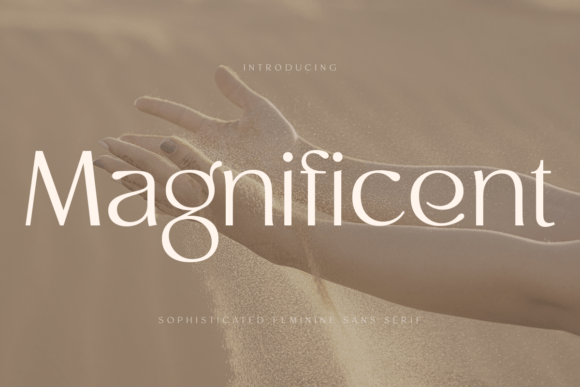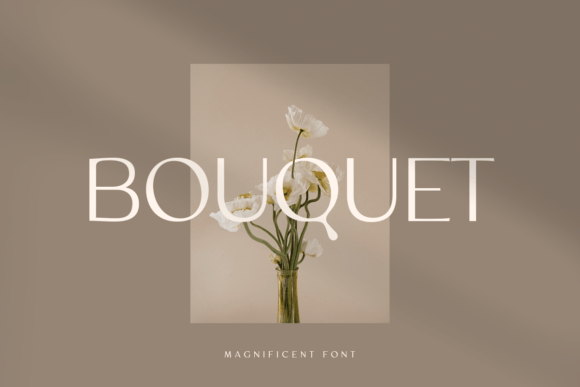
Magnificent Font: Retro Modern Sans Serif for Elegant Logo Design
About the Magnificent Font
Welcome to the world of Magnificent Font, a typeface that will inspire your next great project. Magnificent is a feminine retro modern vintage font with a fancy, playful, unique, and versatile vintage sans serif that you can combine to get a beautiful typography. It is perfect for branding projects, logo, wedding designs, social media posts, advertisements, product packaging, product designs, label, photography, watermark, invitation, stationery, and any projects, it makes with a high level of legibility.
Magnificent excels in headlines, short-form text, and branding applications where its retro-modern flair shines. Its playful energy is ideal for packaging, social media graphics, and invitations, lending a touch of vintage charm. However, avoid using it for large blocks of body text or UI elements; legibility suffers at smaller sizes.
Pairing Magnificent with a clean sans-serif like Open Sans for body copy creates a balanced contrast. For a more elegant feel, consider pairing it with a classic serif such as Garamond. A geometric sans-serif like Futura could provide a modern counterpoint, while a script font like Allura adds a touch of handwritten charm for specific design elements.
Its core personality is playful yet sophisticated, blending retro aesthetics with a modern sensibility. Brands seeking a unique, slightly whimsical yet refined visual identity would find Magnificent a strong asset.